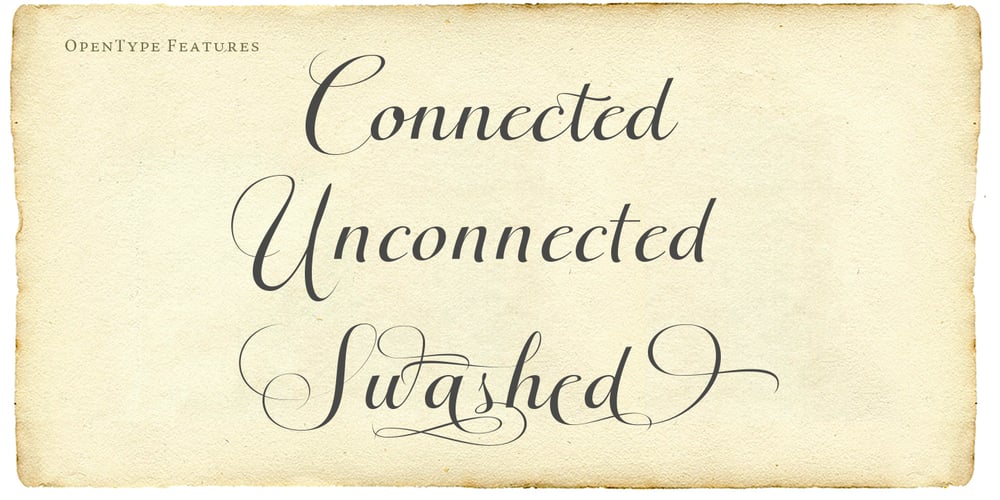
Citix
Citix font
Citix Font Family was designed by Olcar Alcaide and published by Eurotypo. Citix contains 1 styles and family package options. From the mid -17th century, new commercial writing styles emerged which clear showed the influence of pen-crafted calligraphy. A traditional pen-formed flowing script as the “Citix” font, may be suitable for commemorative letters, invitations cards and the most elegant visual communications projects. This font comes with three different kinds of capitals, regular and swashes to choose from, a full set of stylistic alternates, standard and discretional ligatures. Old style numerals, ornaments and tails.